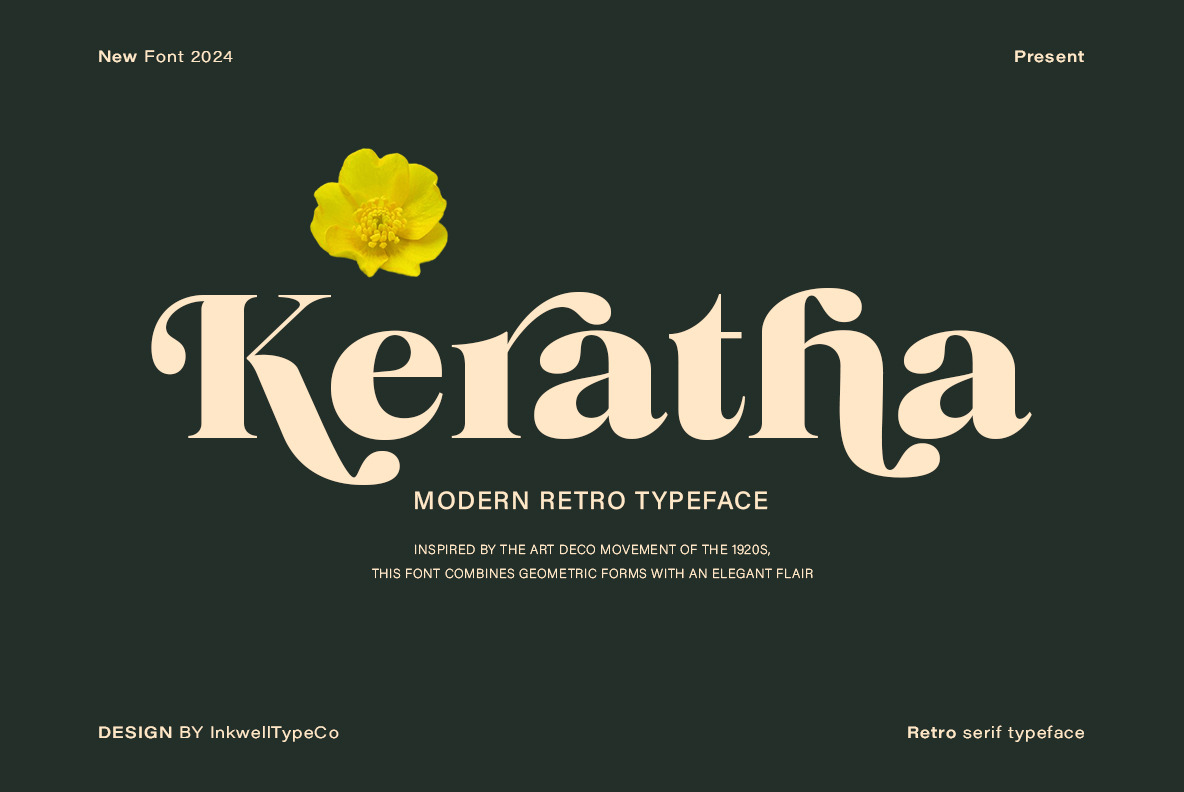
Keratha - MODERN RETRO TYPEFACE
Keratha is a versatile modern retro typeface inspired by the Art Deco movement of the 1920s. Combining geometric forms with an elegant flair, Keratha is designed to bring uniqueness to any design project. With 10 different font styles, Keratha offers flexibility and creativity that can be tailored to a wide range of design needs, from branding and editorial to social media. Its bold shapes and subtle details make Keratha the perfect choice for creating a sophisticated and distinctive look.
Developed to support Latin European languages, this font ensures global appeal and ease of use across various contexts. Crafted with dedication by InkwellTypeCo, Keratha is ready to become a standout element in your design work, bringing a classic feel with a contemporary twist.